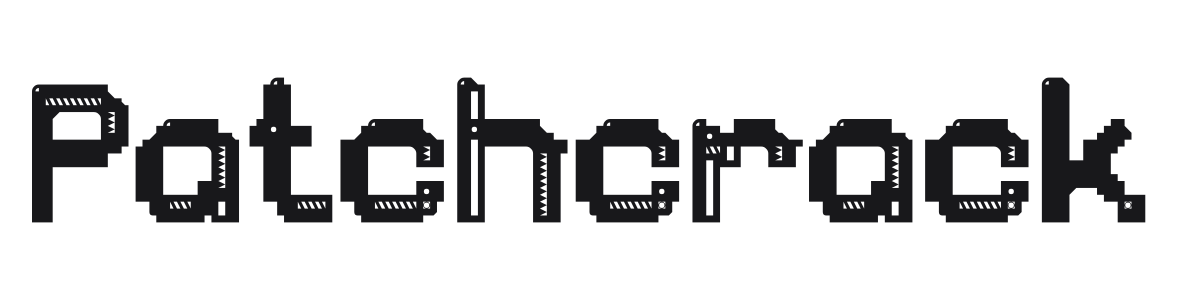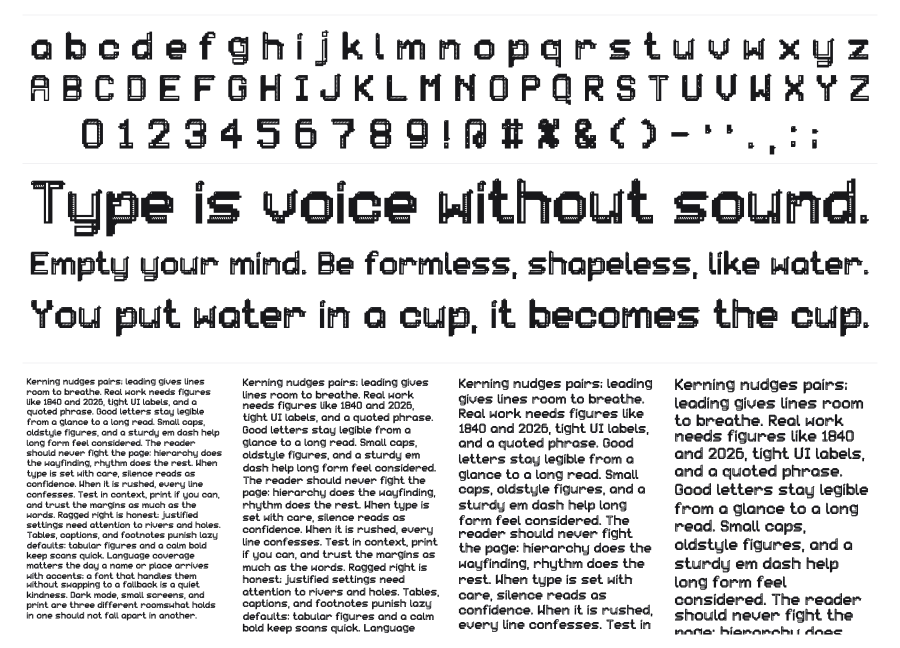
Patchcrack
Patchcrack is a bold, outlined pixel-grid display font that looks like it was assembled from crumbling circuitry and broken screen tiles. Every character is filled with fine rectangular hatching that gives the surface a worn, patched quality. It lives comfortably in gaming, streetwear, and underground music contexts.